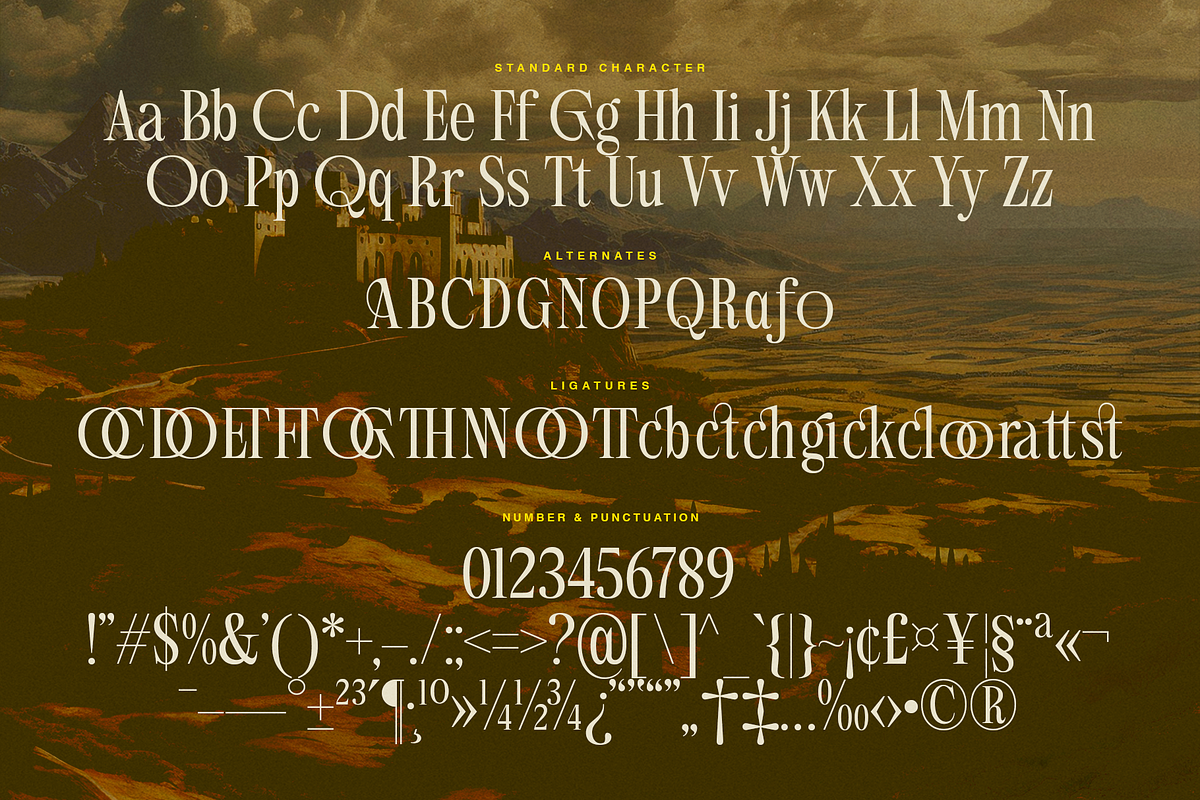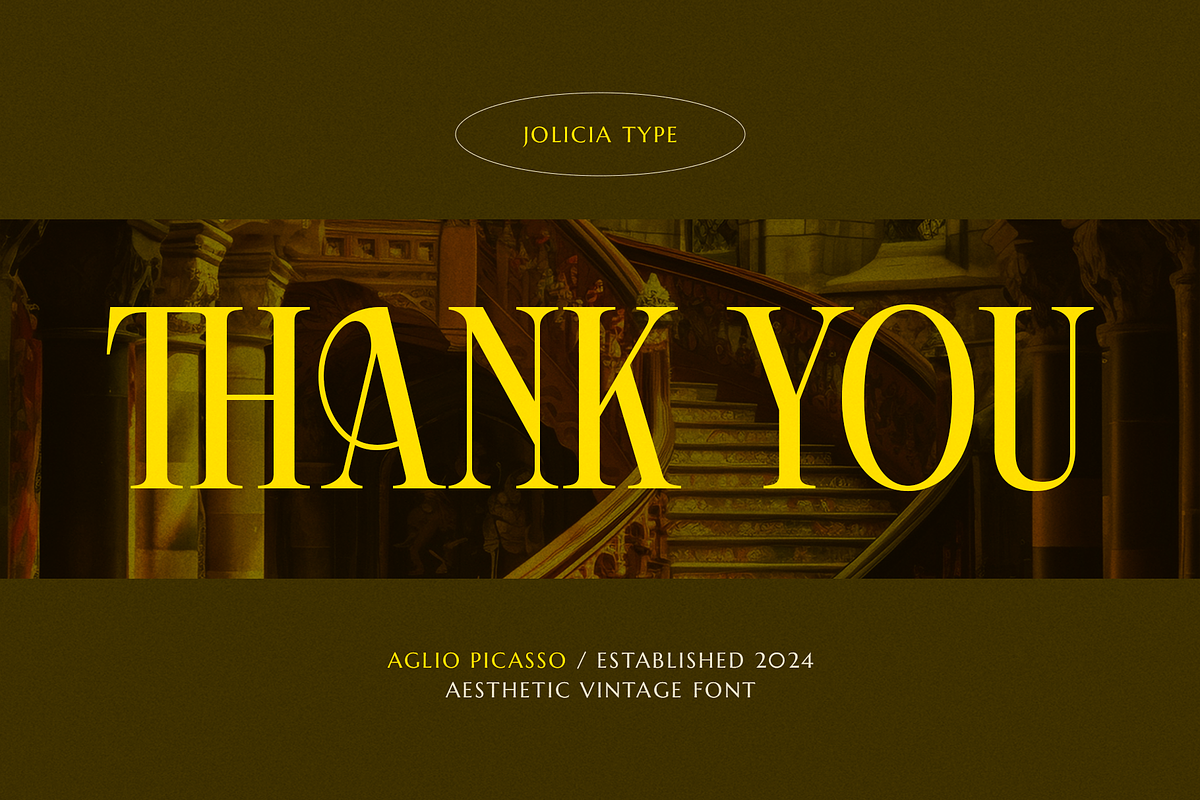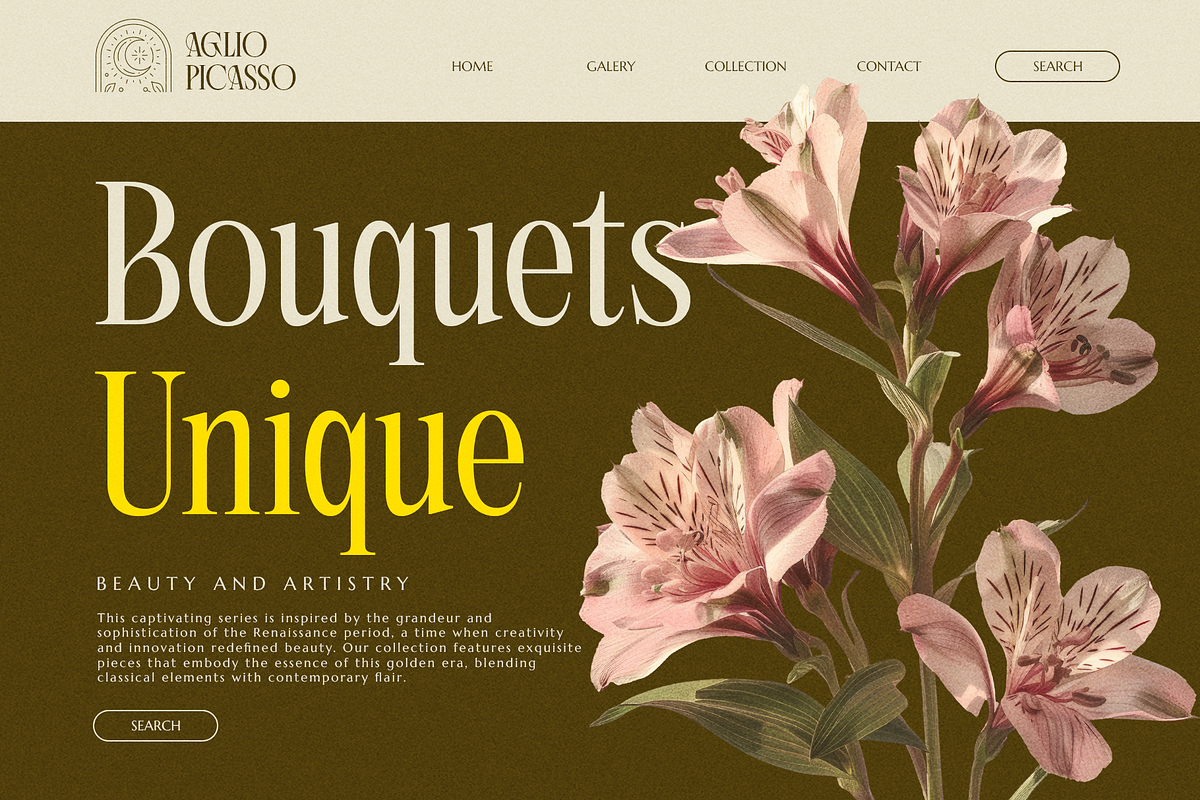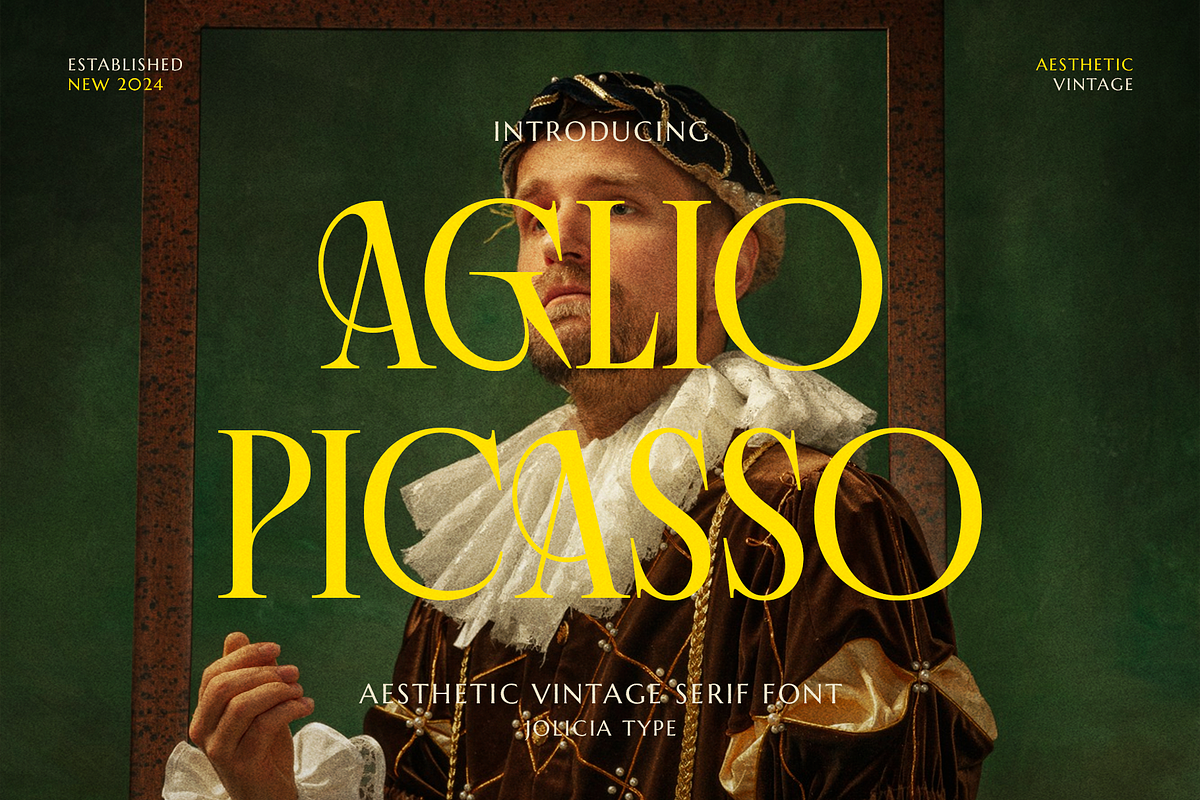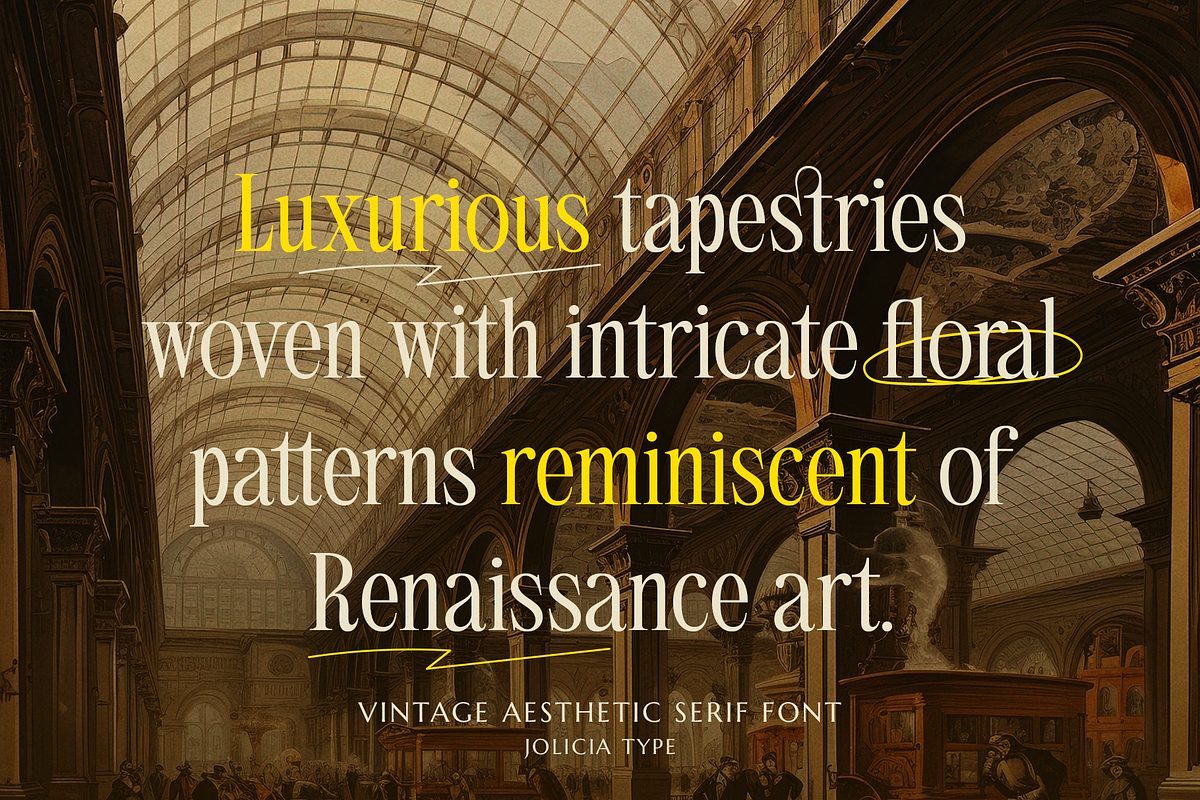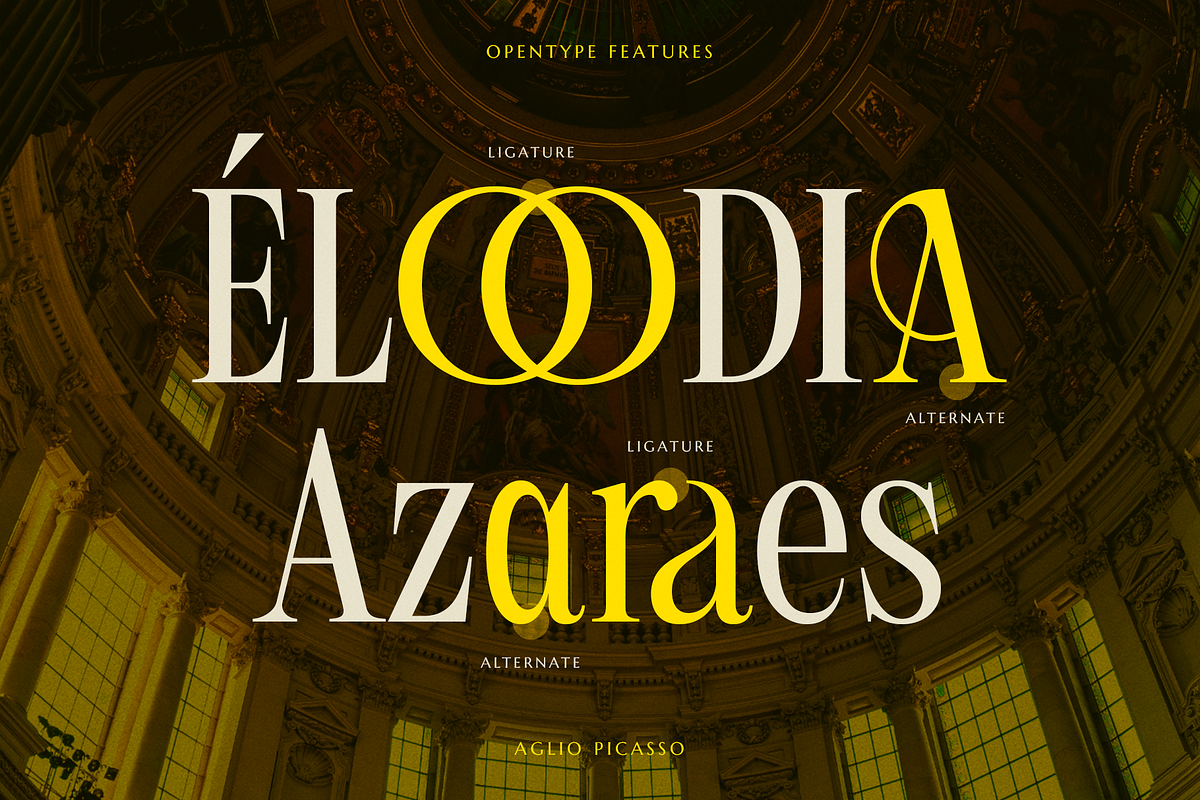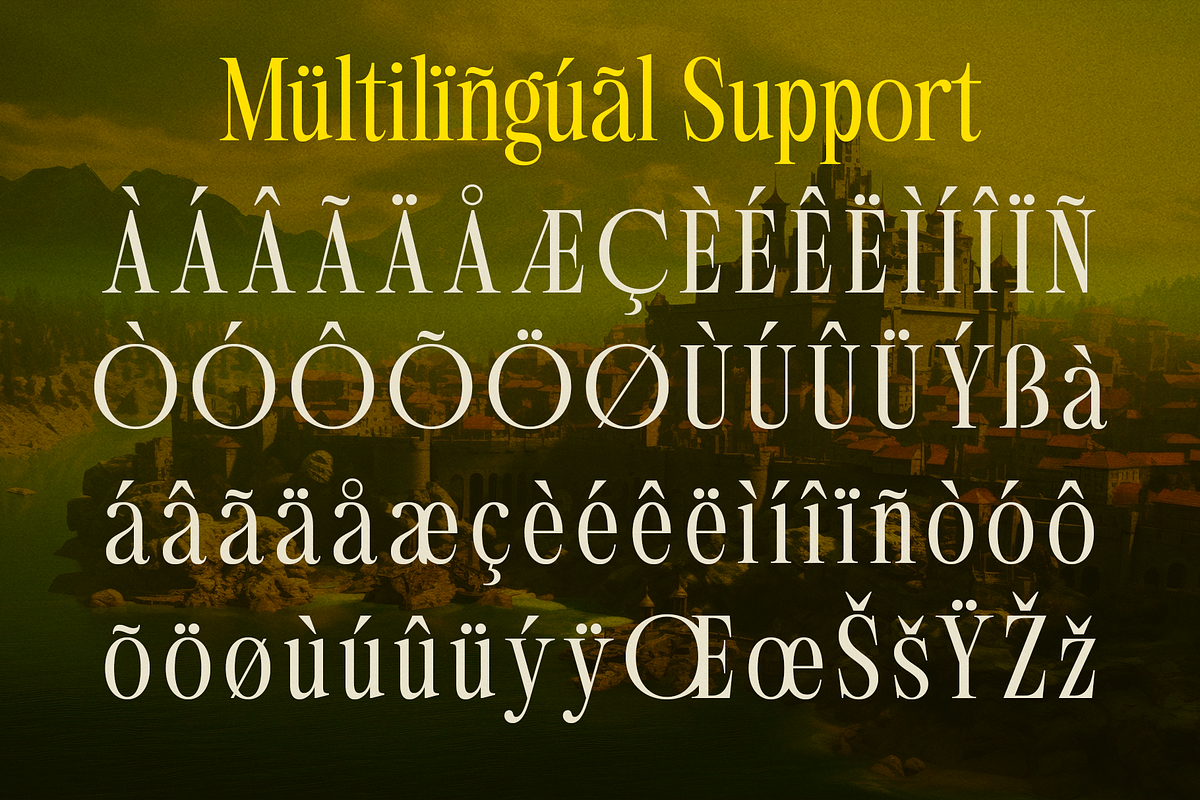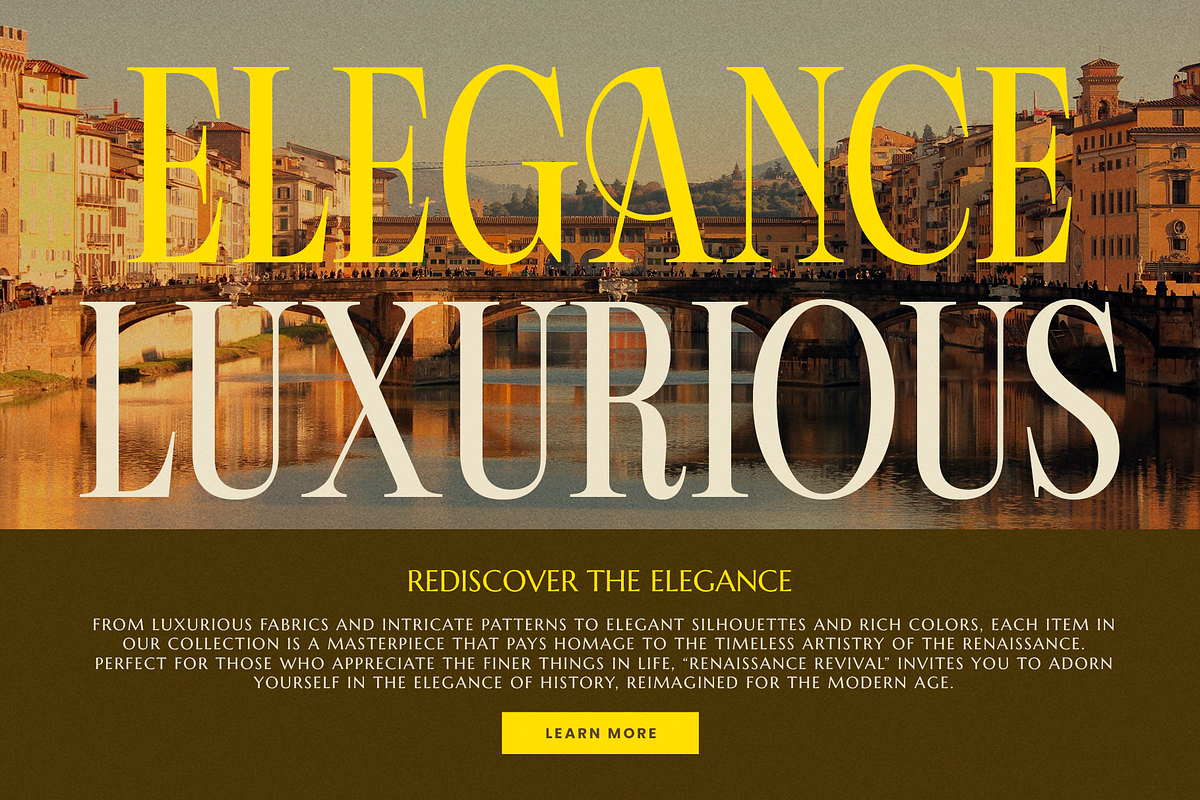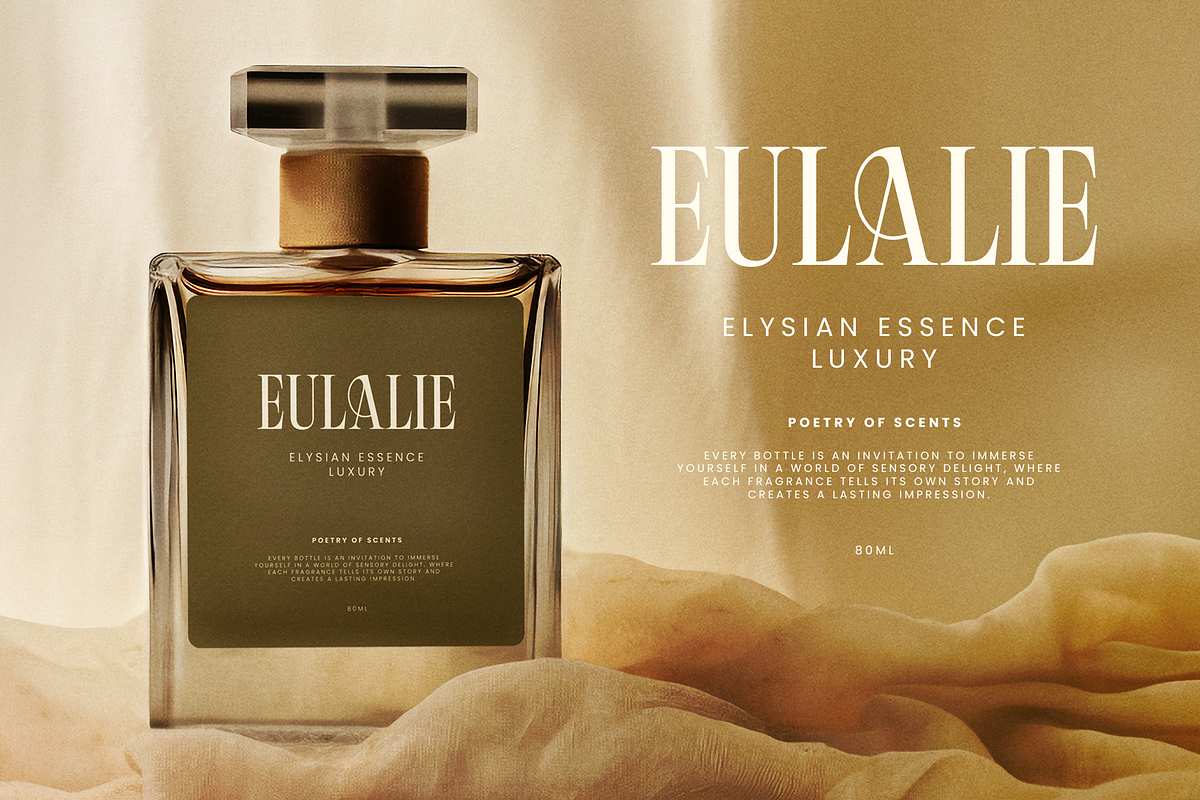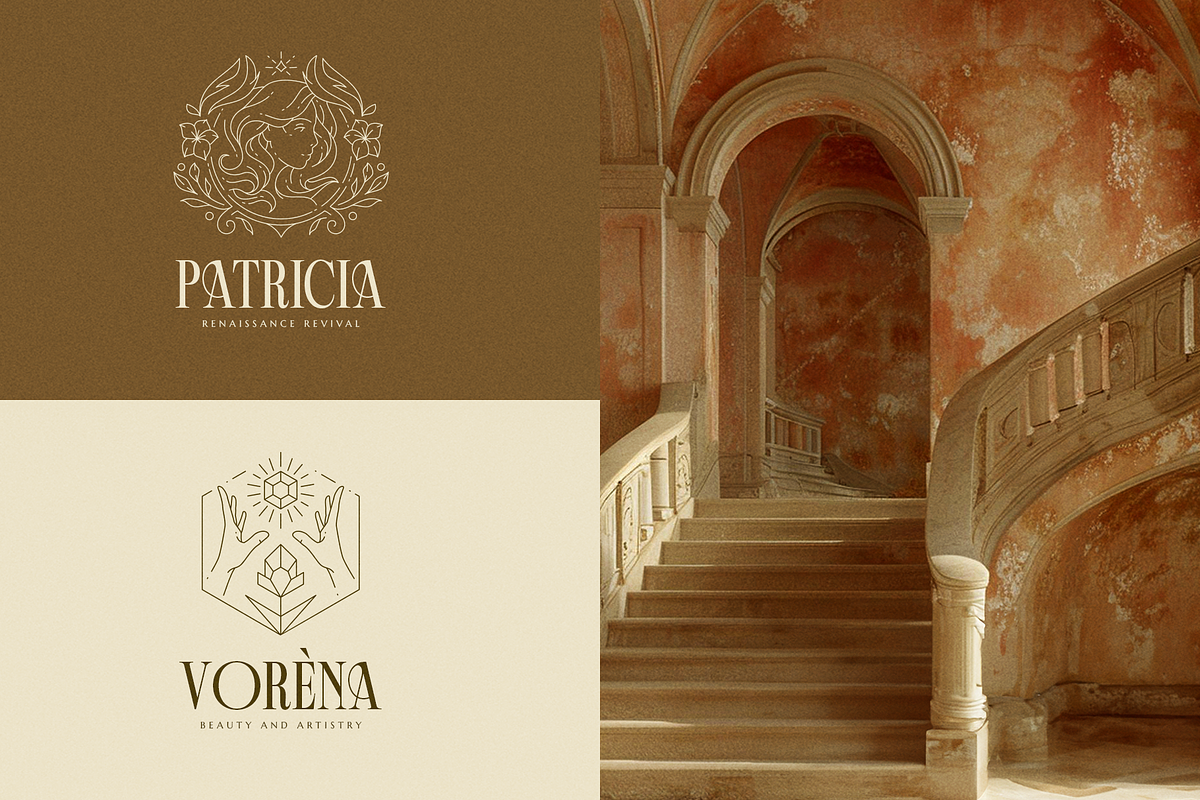
Aglio Picasso | Aesthetic Vintage
Say hello to Aglio Picasso, your new go-to vintage serif font with a dash of artistic flair. If you’re looking to add a bit of classic charm and a lot of style to your designs, this font’s got you covered. It’s perfect for those projects where you want to mix elegance with a touch of retro cool.
Whether you’re working on branding, invitations, posters, or anything that needs that special vintage vibe, Aglio Picasso will make your work stand out. The smooth curves and unique details of this font not only look amazing but are also super easy to read, even in smaller sizes.